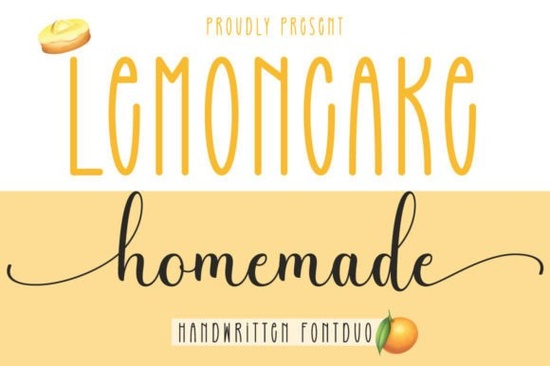
If you need a clean sans serif paired with a soft script for branding, cards, or print-on-demand listings, Lemoncake Homemade Duo Font gives you both in one download. The two styles are designed to work together, so you can switch between straightforward readability and a gentle handwritten feel without hunting for matching typefaces. This makes layout work faster and keeps your visual identity consistent across different materials.
What makes a duo font practical for daily design work?
A duo font saves time because the designer has already balanced the weight, x-height, and spacing between the two styles. Instead of testing dozens of combinations, you get a ready-made pair that shares the same visual rhythm. The sans serif handles body text and small labels clearly, while the script adds a warm touch to headlines or quotes. For small business owners and crafters, that consistency means quicker mockups and fewer revision rounds.
How do you access the extra glyphs and ligatures?
The font is PUA encoded, so every alternate character, swash, and ligature is available without extra software steps. In most design programs, just open the glyphs panel to preview and insert the extras directly. This helps you avoid repetitive letter shapes in longer phrases or add a subtle flourish to a monogram. Beginners using Cricut Design Space or Silhouette Studio will find that PUA encoding keeps installation and cutting straightforward.
Which projects benefit most from a romantic sans-and-script combo?
The pairing works well anywhere you need clarity mixed with a personal feel. Common uses include:
- Greeting cards and wedding invitations where names stand out but details stay readable
- Product packaging and jar labels that need a handmade vibe without sacrificing legibility
- Social media quotes and shop banners that require a soft, approachable tone
- Print-on-demand apparel and tote bags where short phrases drive the design
Because the script is delicate rather than heavily decorated, it scales down nicely for stickers and return address labels. The sans serif holds up at smaller sizes, making it safe for ingredient lists, care instructions, or website footers.
What should you check before adding it to your workflow?